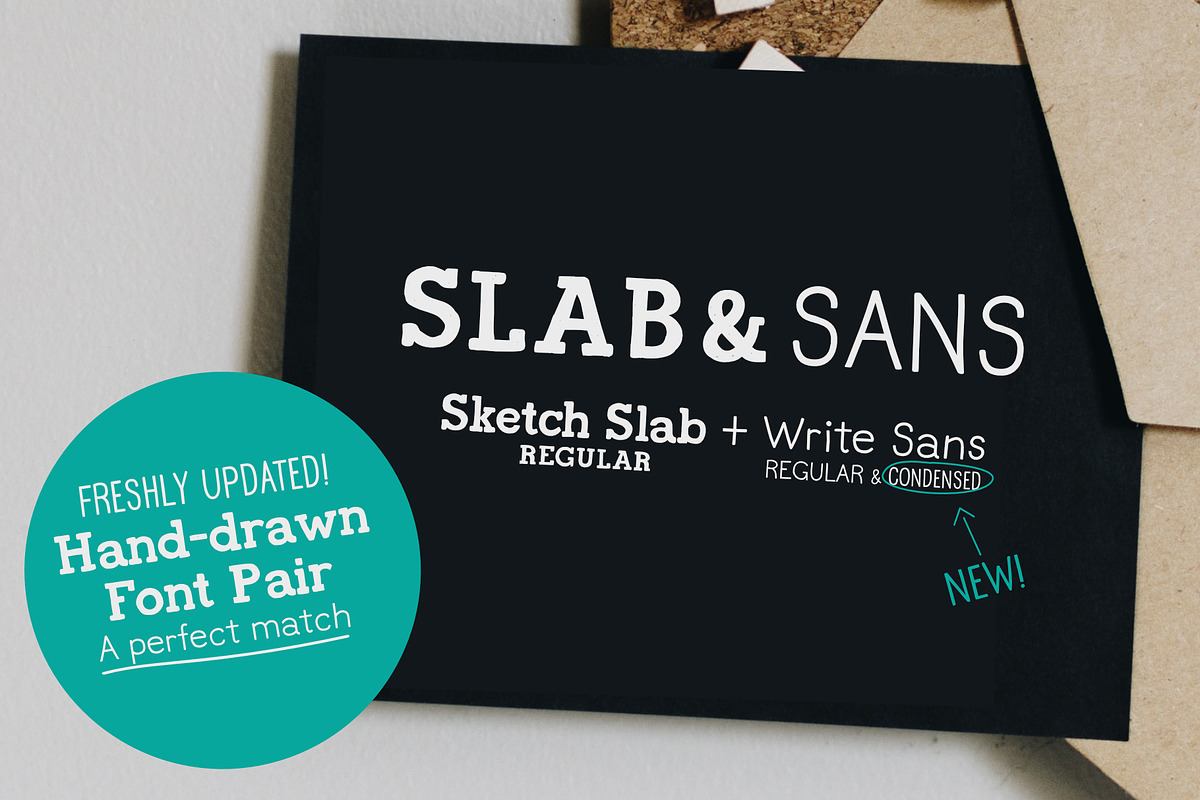
Slab and Sans Font Pair Free Download is a dynamic and versatile font duo designed to work together seamlessly. With the bold, structured aesthetic of the Slab font combined with the clean and modern lines of the Sans serif, this font pair is perfect for branding, website design, editorial layouts, and marketing materials.
The contrast between the solid, traditional feel of the Slab and the sleek, minimalist look of the Sans creates a balanced and eye-catching combination, ideal for both print and digital design. Whether you're designing for a contemporary brand, creating a corporate identity, or working on creative projects, this font pair gives you the flexibility to craft a cohesive visual identity. Slab and Sans Font Pair Free Download lets you test it in personal projects before purchasing a commercial license.
Create modern, professional designs with Slab and Sans — the perfect font pair for any project.